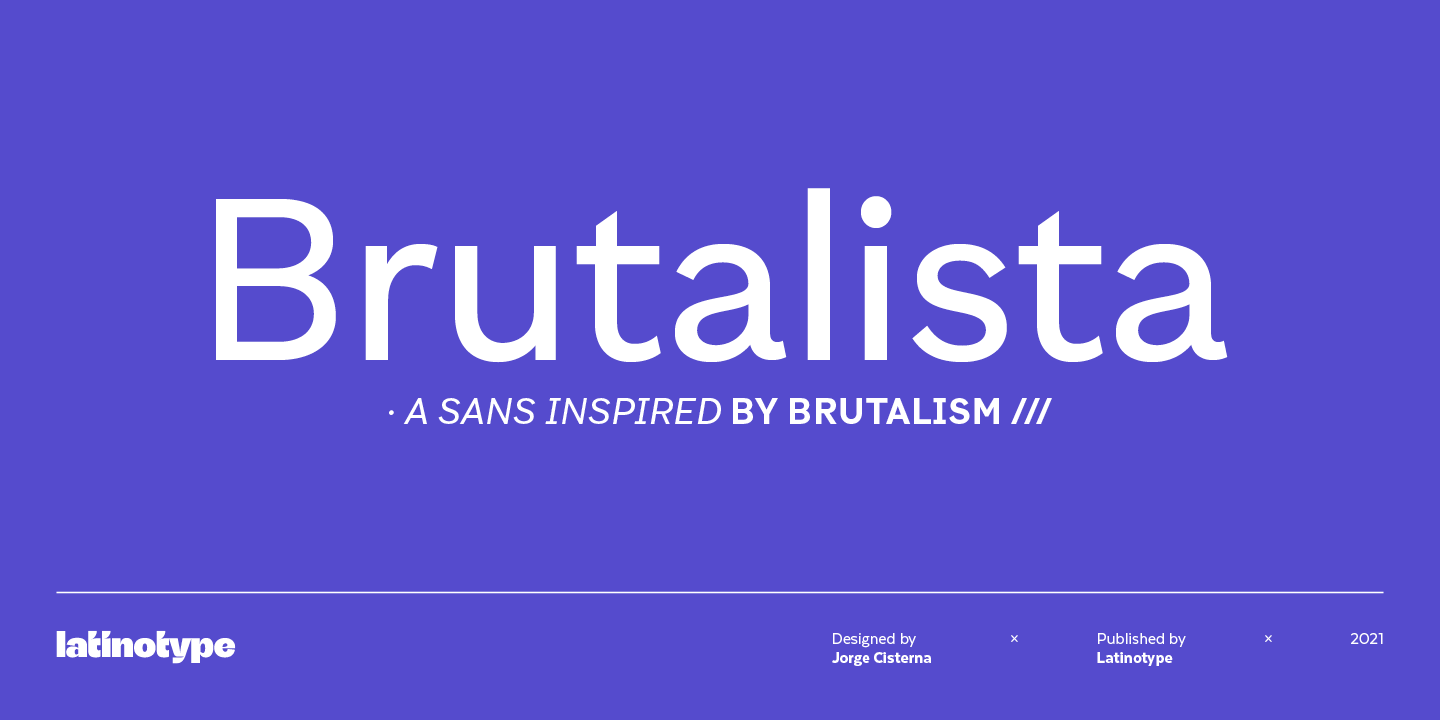
Brutalista Font is perfect for architectural firm branding, modern art gallery signage, industrial design projects, contemporary museum exhibitions, minimalist fashion campaigns, avant-garde publication layouts, urban planning presentations, concrete construction company logos, and any design project that requires a bold, structural aesthetic.
What makes Brutalista Font so exciting is its powerful architectural character that perfectly captures the raw essence of brutalist design philosophy with uncompromising boldness. This font embodies the strength and monumentality of concrete architecture with its robust letterforms that feel both imposing and elegantly functional. The carefully constructed characters evoke the geometric precision of brutalist buildings while maintaining contemporary relevance, creating a typography solution that commands attention and respect in any design context.
The Brutalista Font family typically includes regular weight variations with comprehensive character sets featuring uppercase and lowercase letters, numerals, punctuation marks, and architectural symbols. Some versions may offer additional weights like bold or light variants, along with condensed options that provide designers with structural flexibility for creating powerful, monument-like layouts.
Brutalista Font Free Download has gained tremendous recognition among architects, graphic designers, and creative professionals who appreciate strong, structural typography. This distinctive typeface performs exceptionally well in both digital and print applications where commanding presence and architectural authenticity are essential for communicating strength, permanence, and modern sophistication.
The font's brutalist-inspired design makes it particularly effective for construction industry branding, architectural portfolios, industrial design presentations, and contemporary art projects that need to convey power and structural integrity. Its bold character shapes and excellent legibility ensure professional results across various media formats.
Designers choose Brutalista Font for its ability to instantly communicate architectural authority and modern industrial aesthetics while maintaining functional versatility. The font's concrete-inspired construction works magnificently on everything from large-scale building signage to sophisticated brand identities.
Whether you're developing architectural firm branding, industrial company materials, modern art exhibition graphics, or contemporary design portfolios, Brutalista Font delivers the perfect fusion of brutalist authenticity and design functionality that creates unforgettable visual impact with monumental presence.